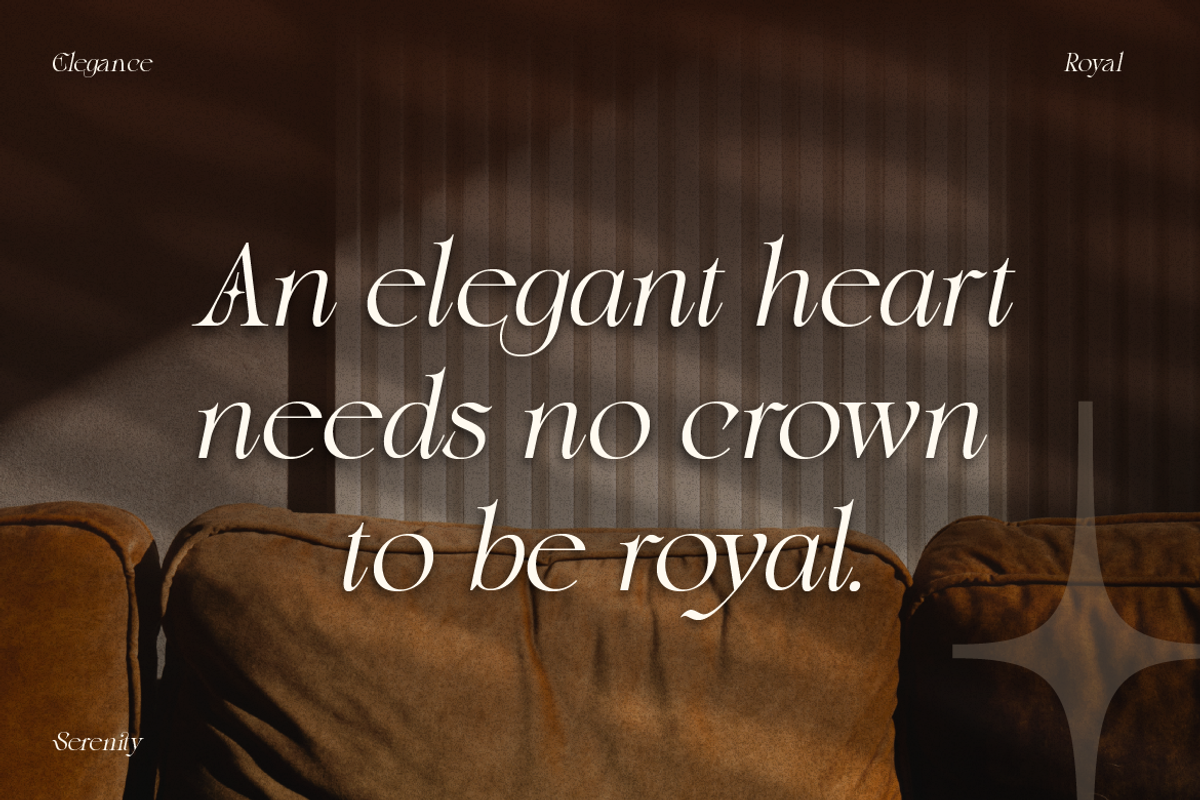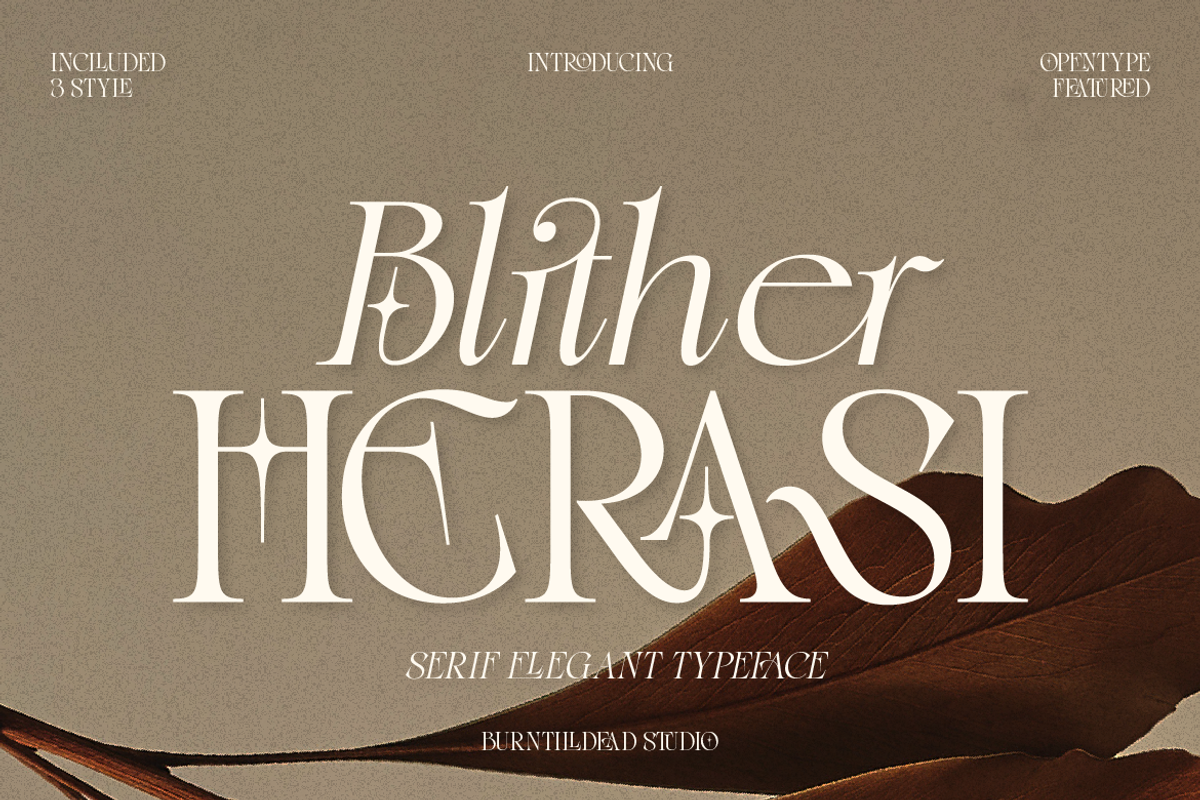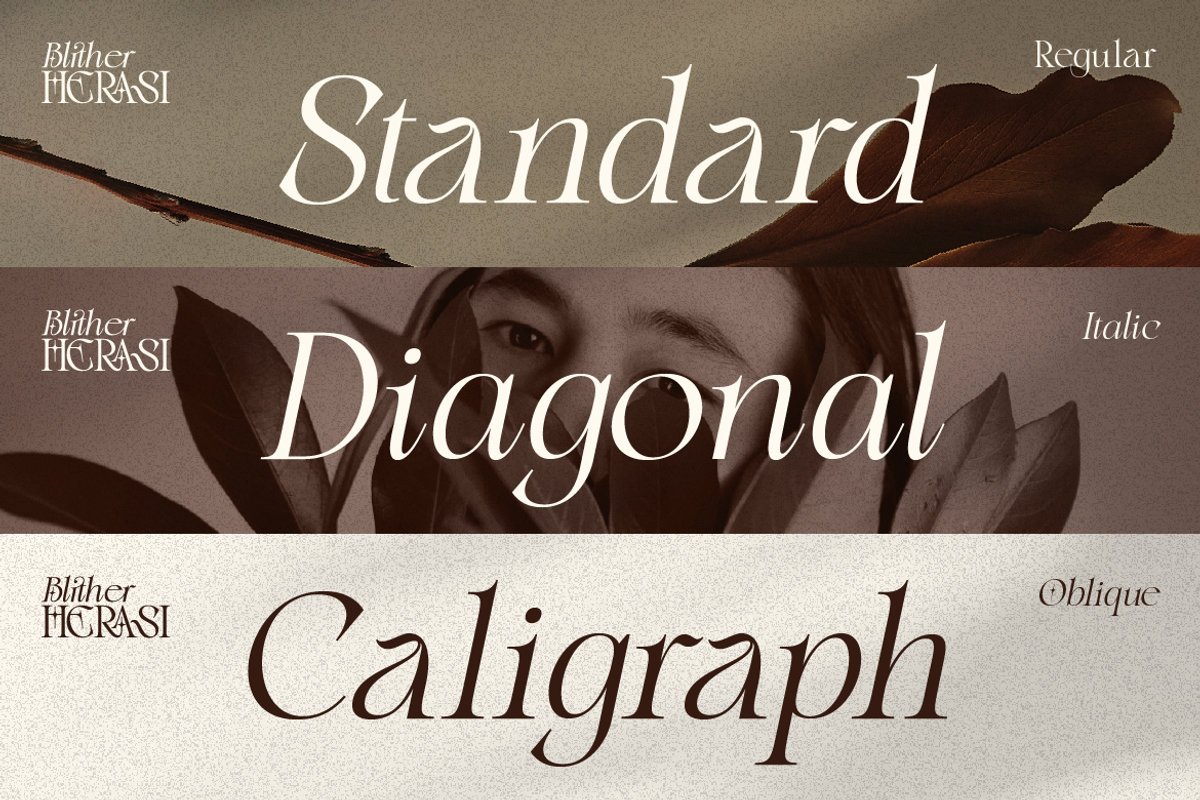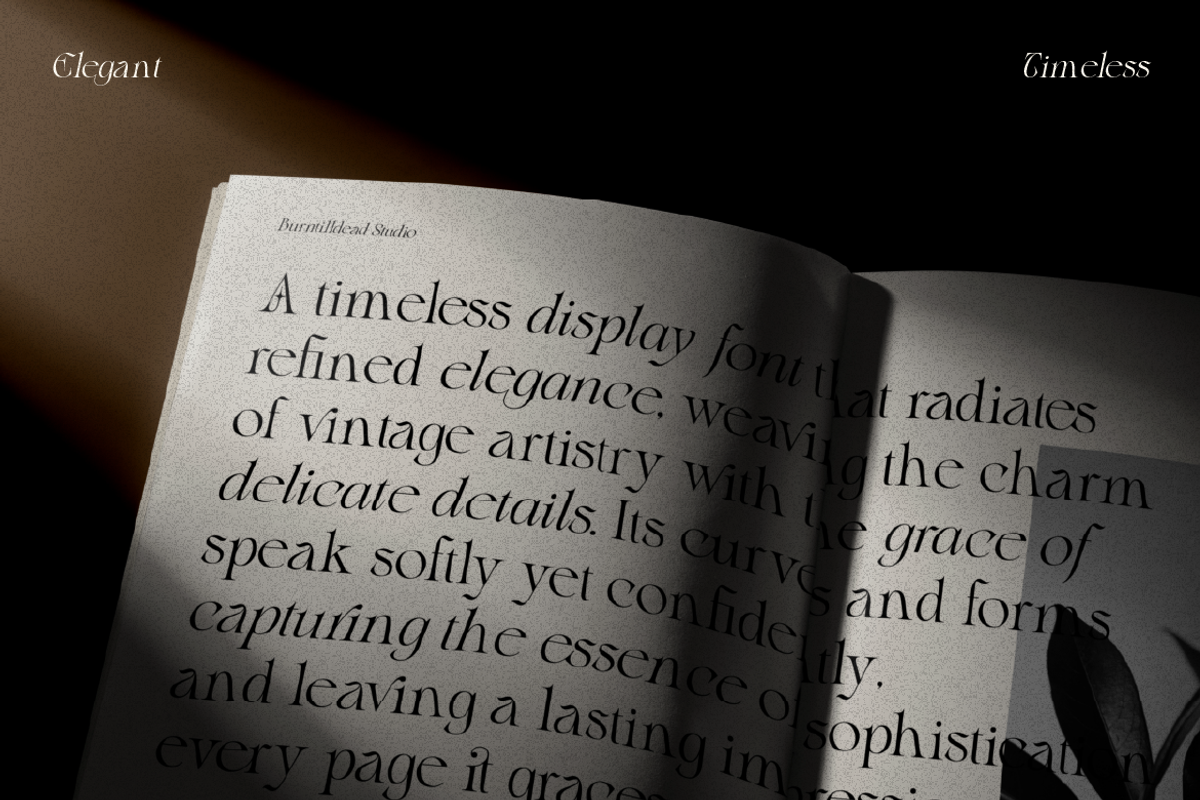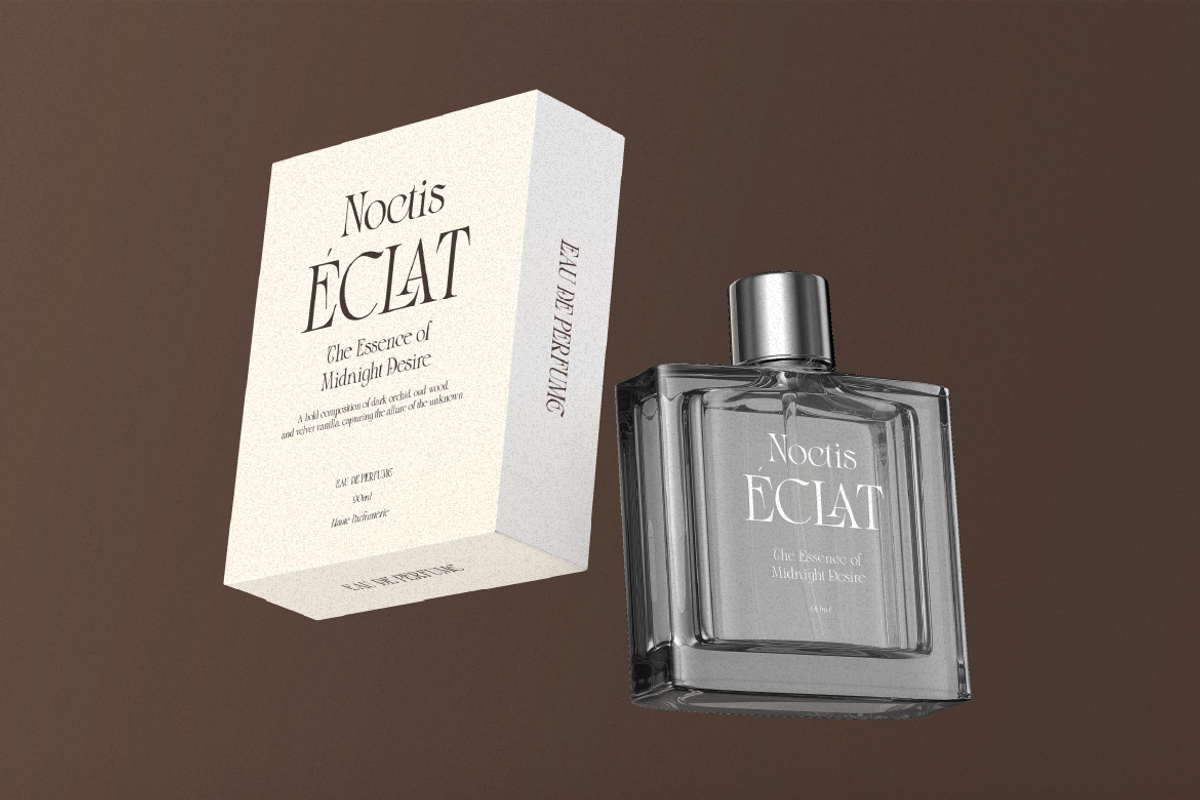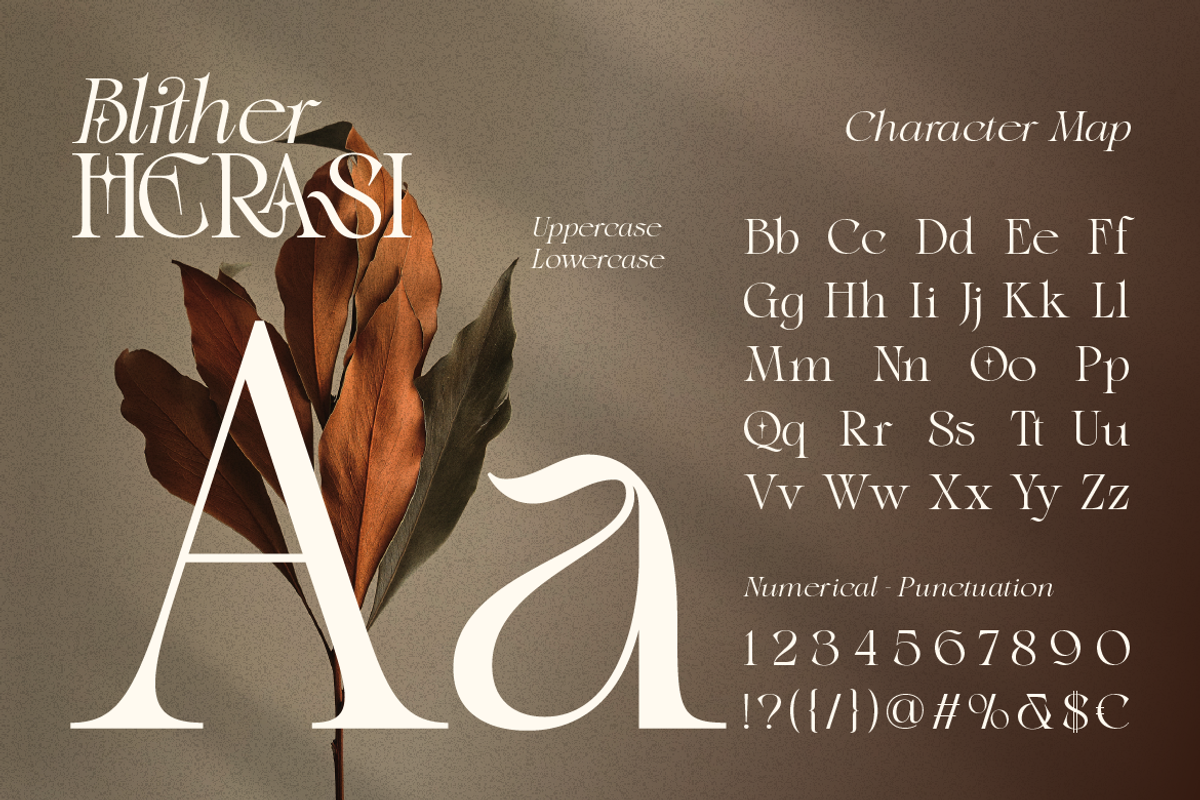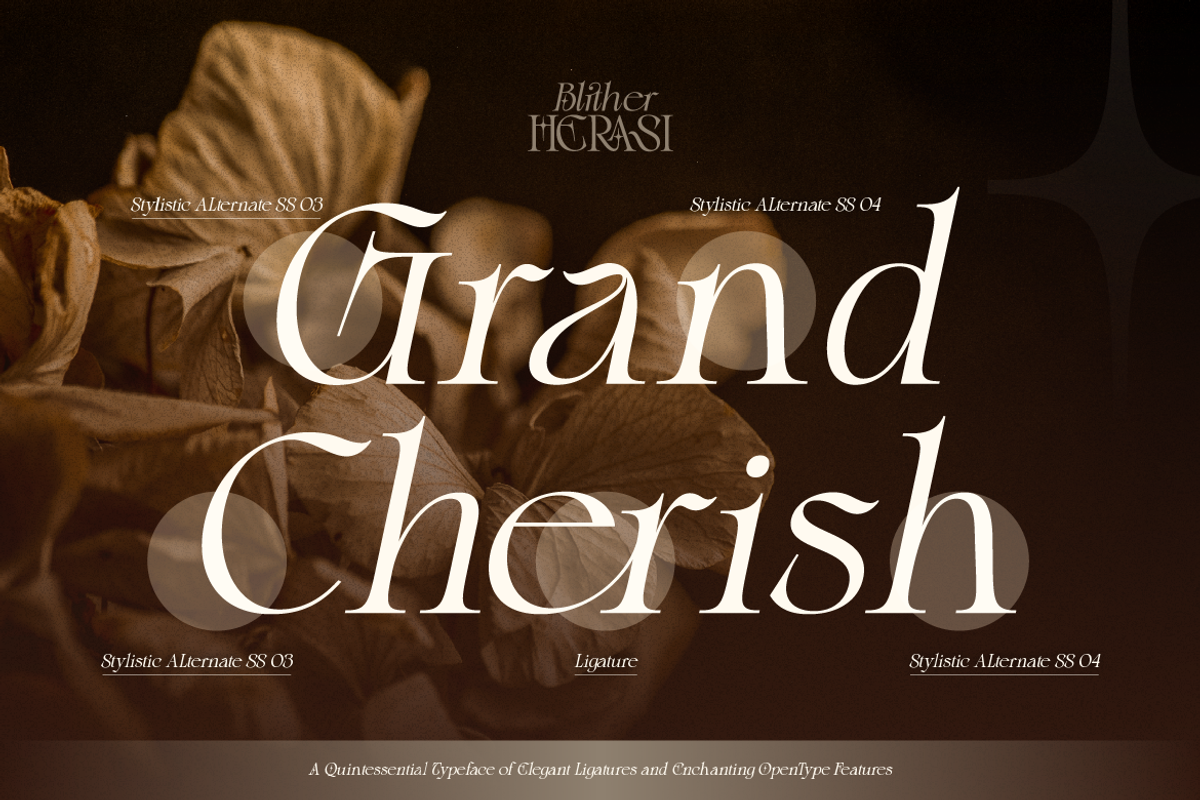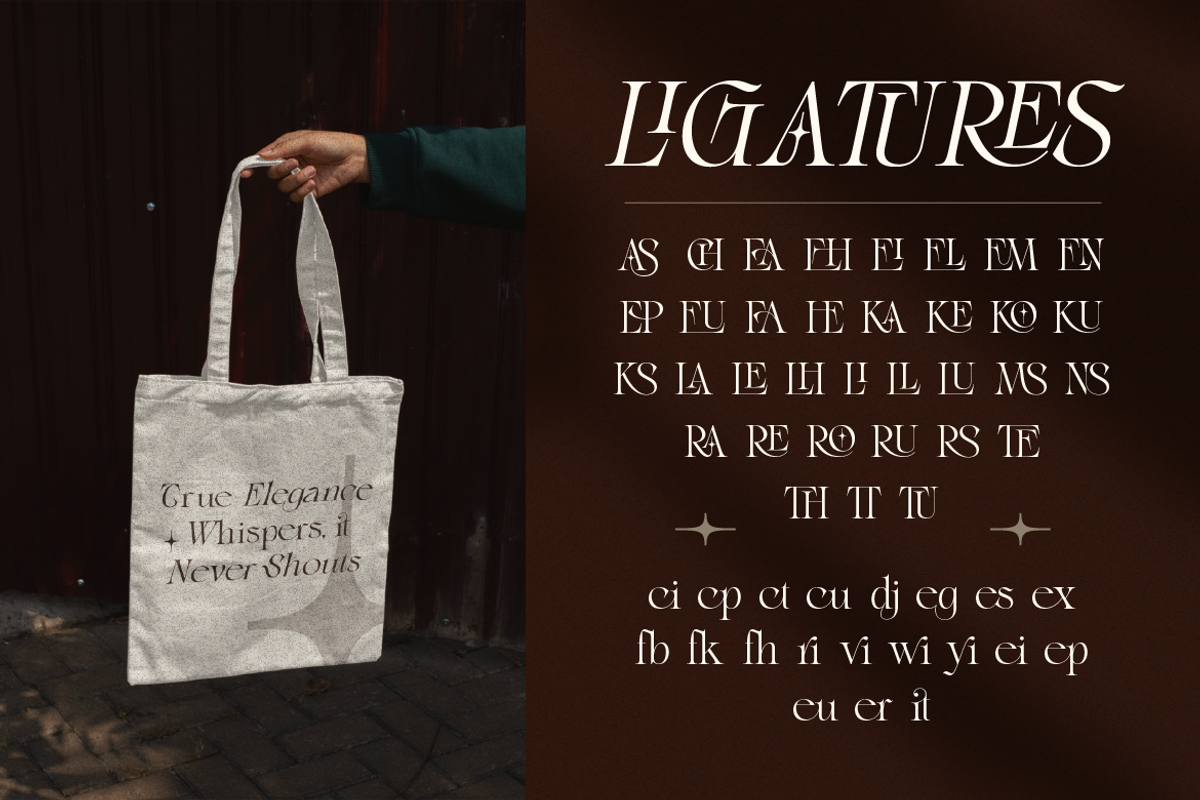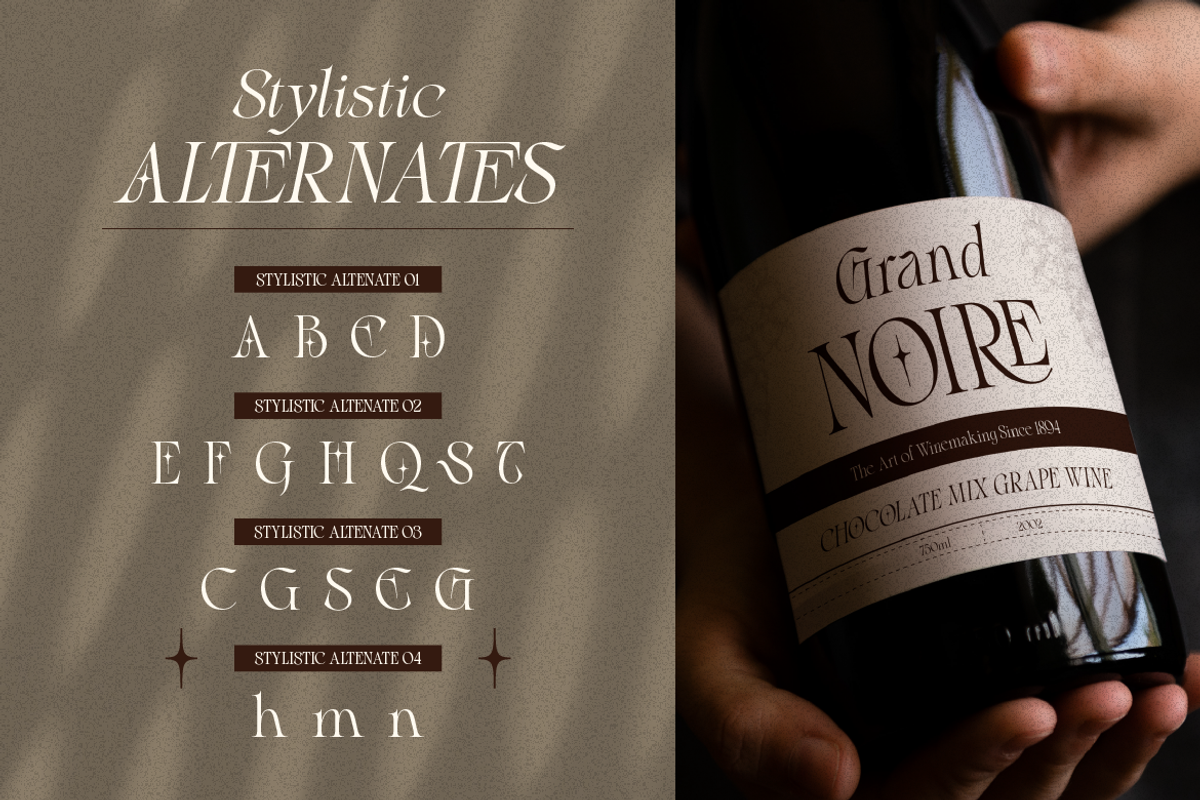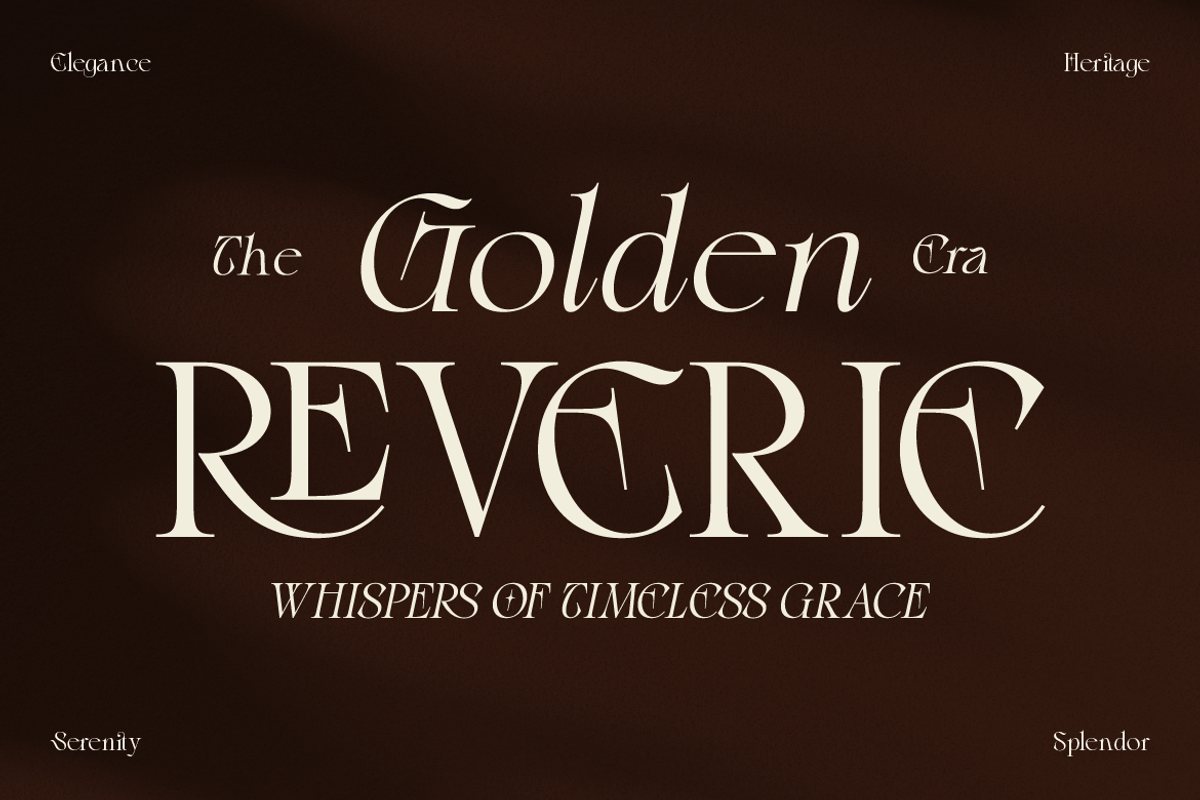
Blither Herasi - Elegant Serif
Blither Herasi is an elegant serif typeface with a modern yet slightly gothic touch. It’s stylish, dramatic, and versatile, perfect for branding, editorial layouts, fashion projects, logos, and more. With its unique curves and timeless vibe, this font brings a classy but edgy feel to any design. This typeface comes with three styles (Regular, Italic, and Oblique), making it easy to match your creative needs. Whether you want a high-fashion aesthetic, a vintage inspired poster, or a striking logo. Blither Herasi is an elegant serif, but not your typical classy font. With a subtle touch of gothic flair, it brings a mysterious yet artsy vibe to your design.
A - Z set (Uppercase & Lowercase)
Number
Alternate
Ligature
Blither Herasi Characters Map